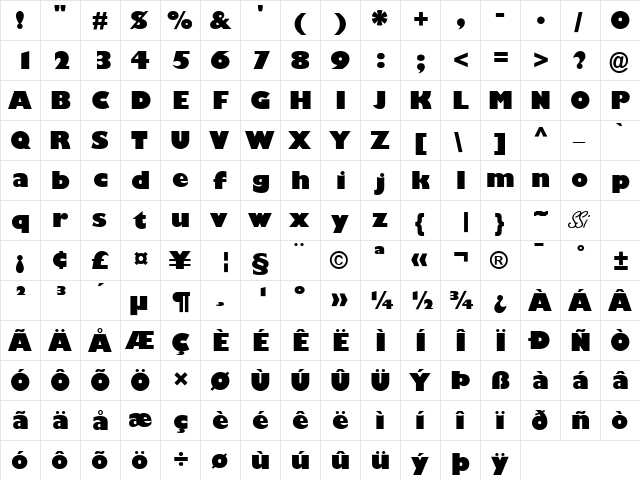
Gill Black SSi Black
Design Context for Gill Black SSi Typeface
Gill Black SSi is a composed and adaptable typeface that performs quietly and consistently across a wide range of design contexts.